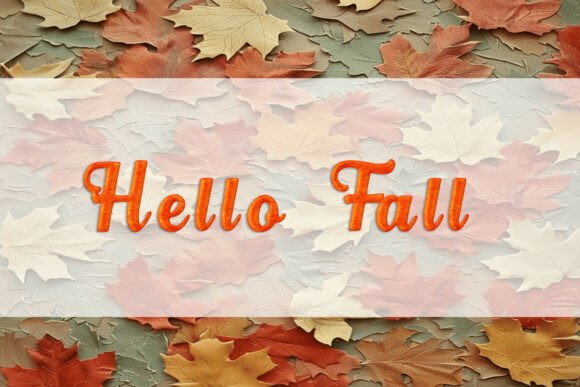
Introducing Hello Fall Font: Elevate Your Designs with Elegance and Versatility
Are you on the hunt for a typeface that can seamlessly transition across various design projects? Look no further than the Hello Fall Font. This versatile font is designed to meet the needs of designers, crafters, and businesses alike, offering a unique blend of elegance and adaptability that can elevate a wide array of applications.
Aesthetic Appeal and Flexibility
Hello Fall Font boasts an elegant appearance that can add a touch of sophistication to any project. Whether you’re working on a stylish T-shirt design, creating eye-catching stickers, or developing branding materials that require a memorable touch, Hello Fall delivers. Its aesthetic appeal is not limited to digital platforms; it shines on magazine pages, making it a perfect choice for print designers looking for a font that can add a bit of flair to their layouts.
Versatility Across Various Projects
The true beauty of Hello Fall Font lies in its flexibility. This typeface is not confined to a single use case; it’s incredibly versatile. Here are some of the many ways you can utilize Hello Fall Font:
• T-Shirts and Apparel: Add a stylish and unique touch to your clothing line or custom apparel with a font that’s both trendy and timeless.
• Stickers and Decals: Create one-of-a-kind stickers that stand out with Hello Fall’s distinctive charm.
• Branding Materials: Elevate your brand’s visual identity with a font that exudes elegance and professionalism.
• Magazine Pages: Enhance your print designs with a sophisticated typeface that captures attention.
• SVG Files: Adaptable for use in scalable vector graphics, making it perfect for cutting machines and detailed designs.
• Greeting Cards: Add a heartfelt and personal touch to your greeting cards, making them truly special.
• Cricut Projects: Ideal for embossing needs, bringing a new level of creativity to your cutting projects.
• Posters and Social Media Posts: Give your visual content a boost with a font that stands out and engages audiences.
Enhance Your Designs with Hello Fall Font
Why Choose Hello Fall Font?
Choosing Hello Fall Font for your design needs comes with several advantages:
• Unique Style: Stand out from the crowd with a font that has a distinct personality.
• High Versatility: Use it across different projects and platforms without worrying about adaptability issues.
• Elegant and Memorable: Leave a lasting impression on your audience with a sophisticated and engaging typeface.
• Easy to Use: Seamlessly integrate into your existing design workflow.
Hello Fall Font is more than just a typeface; it’s a creative asset designed to bring your design aspirations to life. Its elegance, versatility, and wide range of applications make it an invaluable addition to any designer’s or crafter’s toolkit. Whether you’re looking to add a touch of sophistication to your branding, create memorable greeting cards, or simply enhance your social media posts, Hello Fall Font is the perfect choice. Unlock the full potential of your designs with Hello Fall Font and discover a world of creative possibilities.